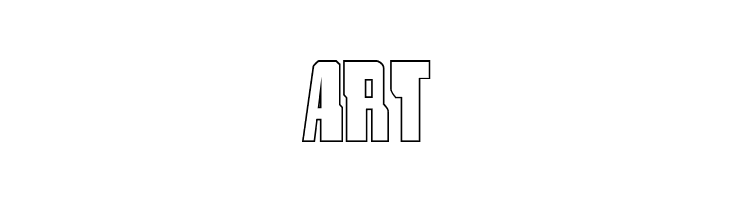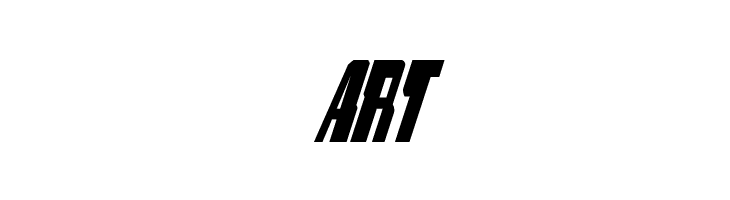
• Lamprey Condensed
A bold, condensed font with geometric, angular design.
• Lamprey Condensed Italic
A bold, condensed, and italic font with high contrast and a modern, dynamic style.
• Lamprey Expanded
A bold, geometric font with an expanded width and angular design.
• Lamprey Expanded Italic
A bold, italic, and expanded font with a modern, dynamic style.
• Lamprey Italic
A bold, italic, and angular font with a futuristic style.
• Lamprey Laser Italic
A bold, italic font with a futuristic and dynamic design.
• Lamprey Laser Regular
A bold, geometric font with a futuristic and industrial design.
• Lamprey Leftalic
A bold, left-slanted font with geometric and angular characters.
• Lamprey Outline Italic
Bold, angular outline font with an italicized, modern design.
• Lamprey Outline Regular
A bold, geometric outline font with a modern and futuristic style.